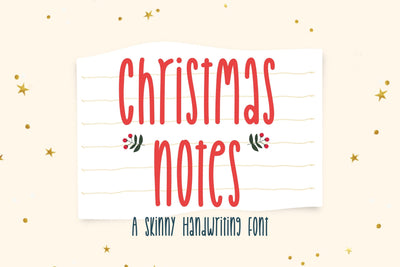
Christmas Notes - Skinny Handwriting Font
Christmas Notes is a tall and thin handwritten font. You can use this font in various projects - blog posts, logos, branding, digital planner, digital notes, invitations, greeting cards, planners, digital journal, photo albums, study notes, school notes, college notes, decorations and much more. Its authentic look and feel will add a personal and realistic feel to your designs.
The font includes uppercase, lowercase, numbers, punctuations